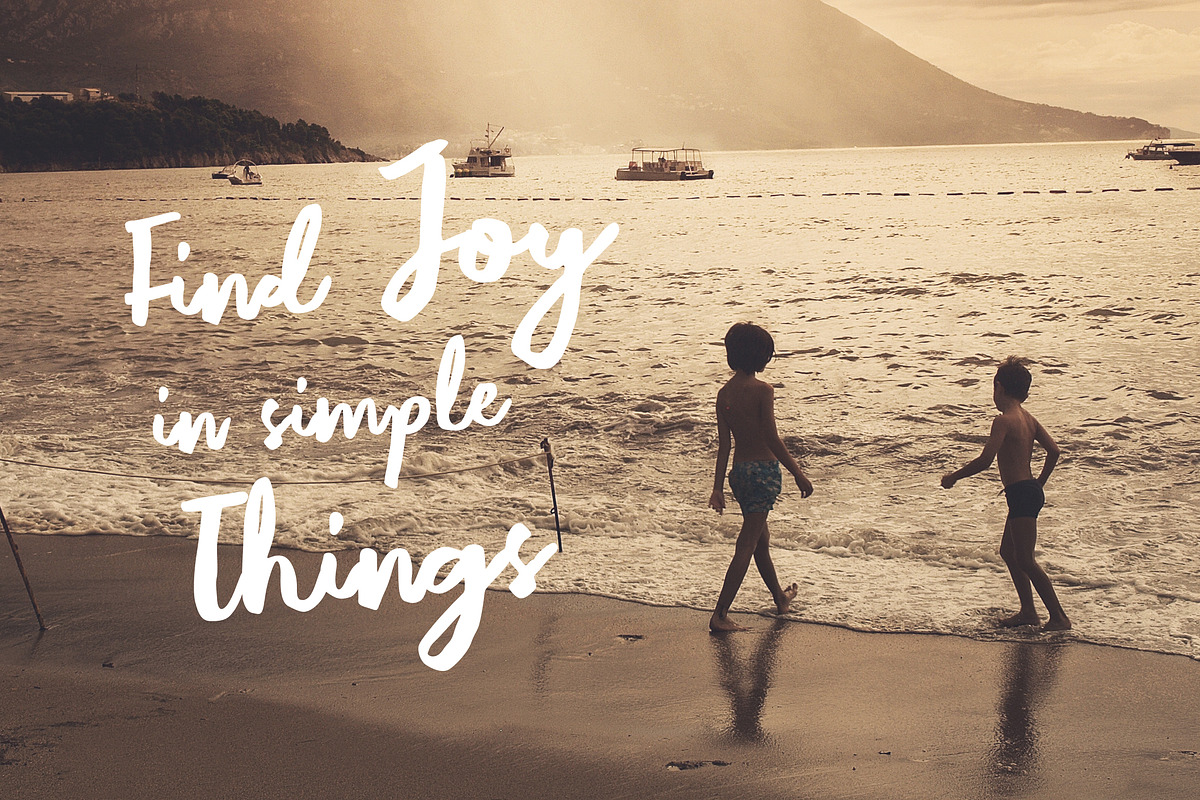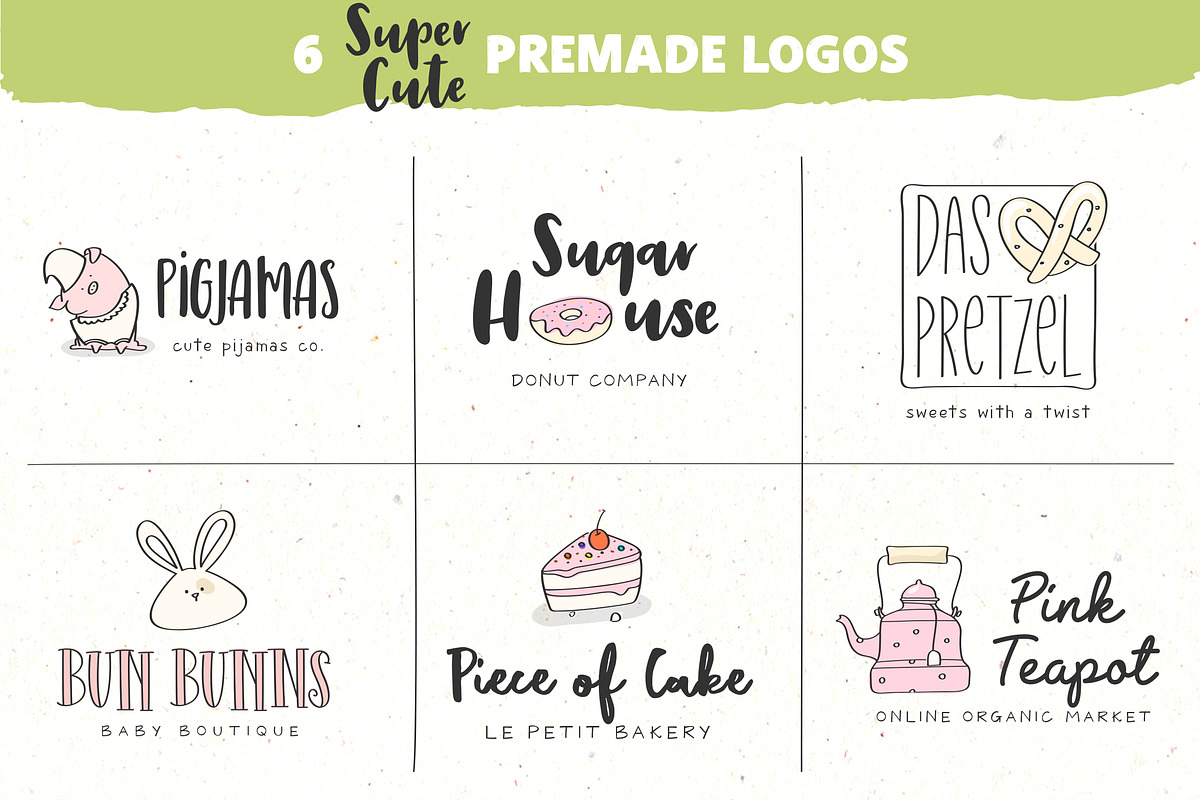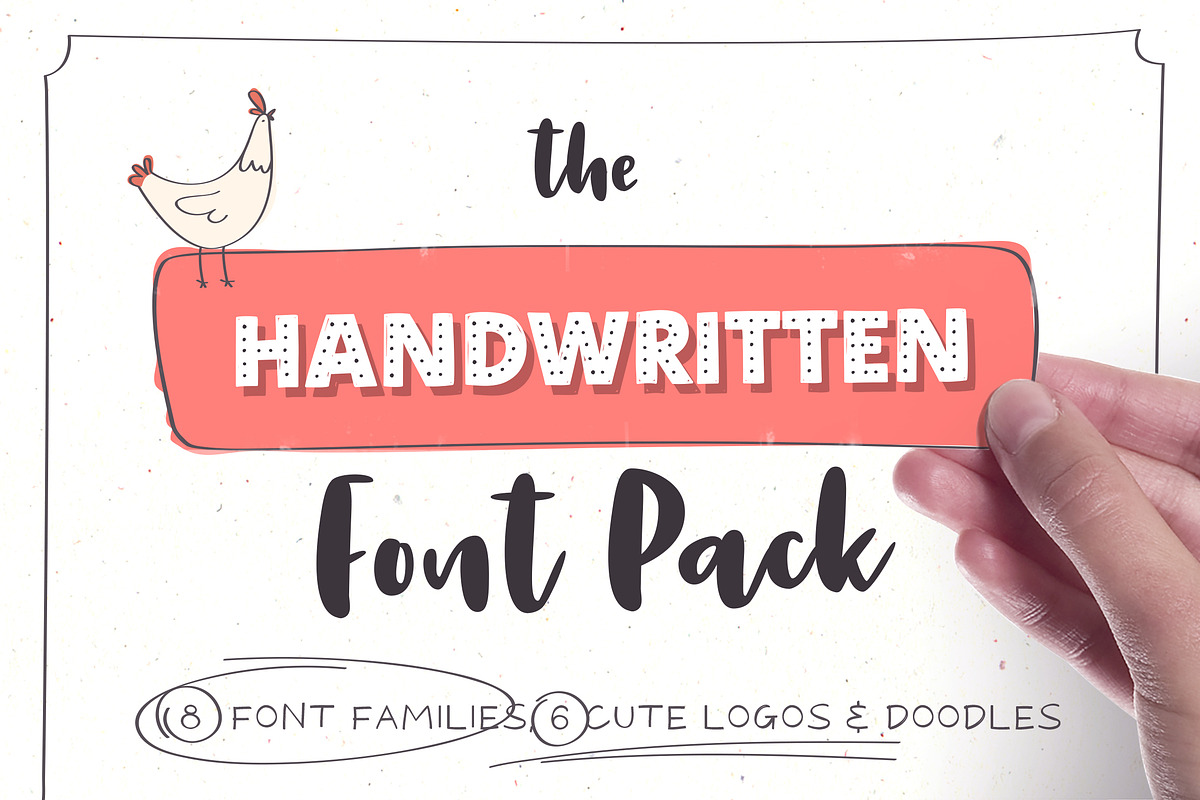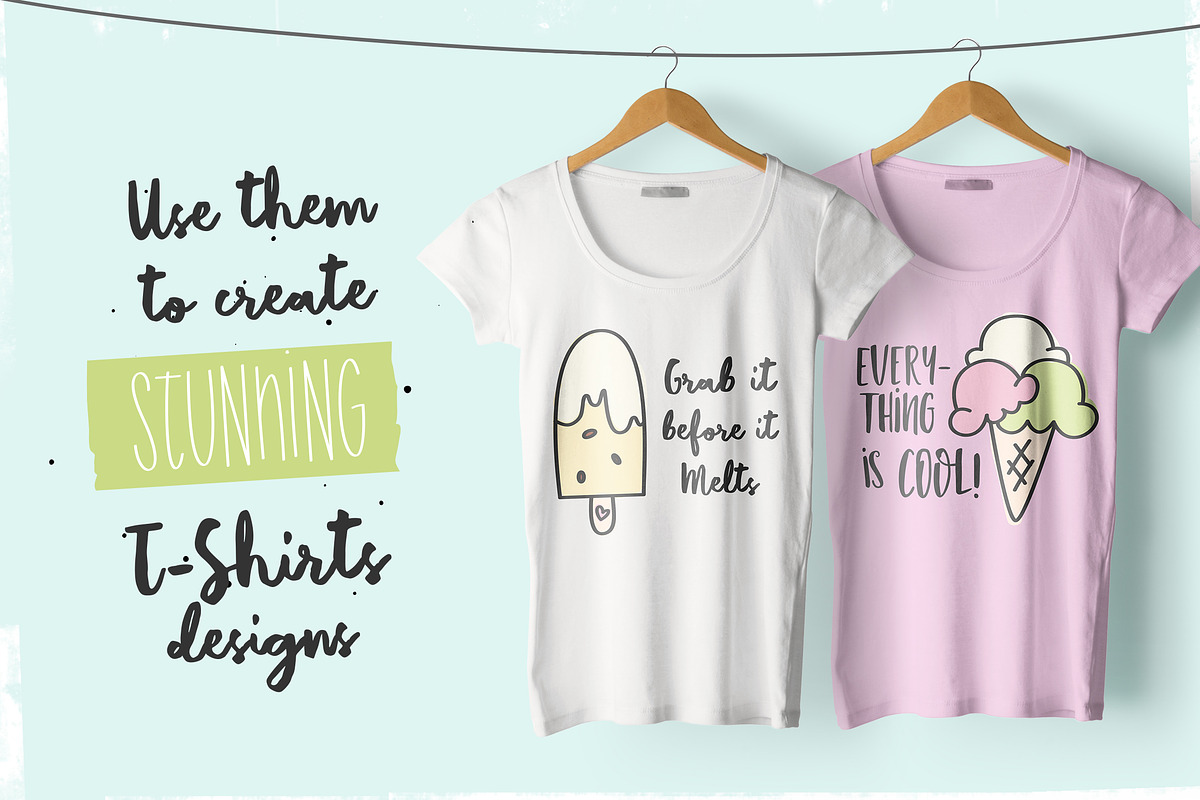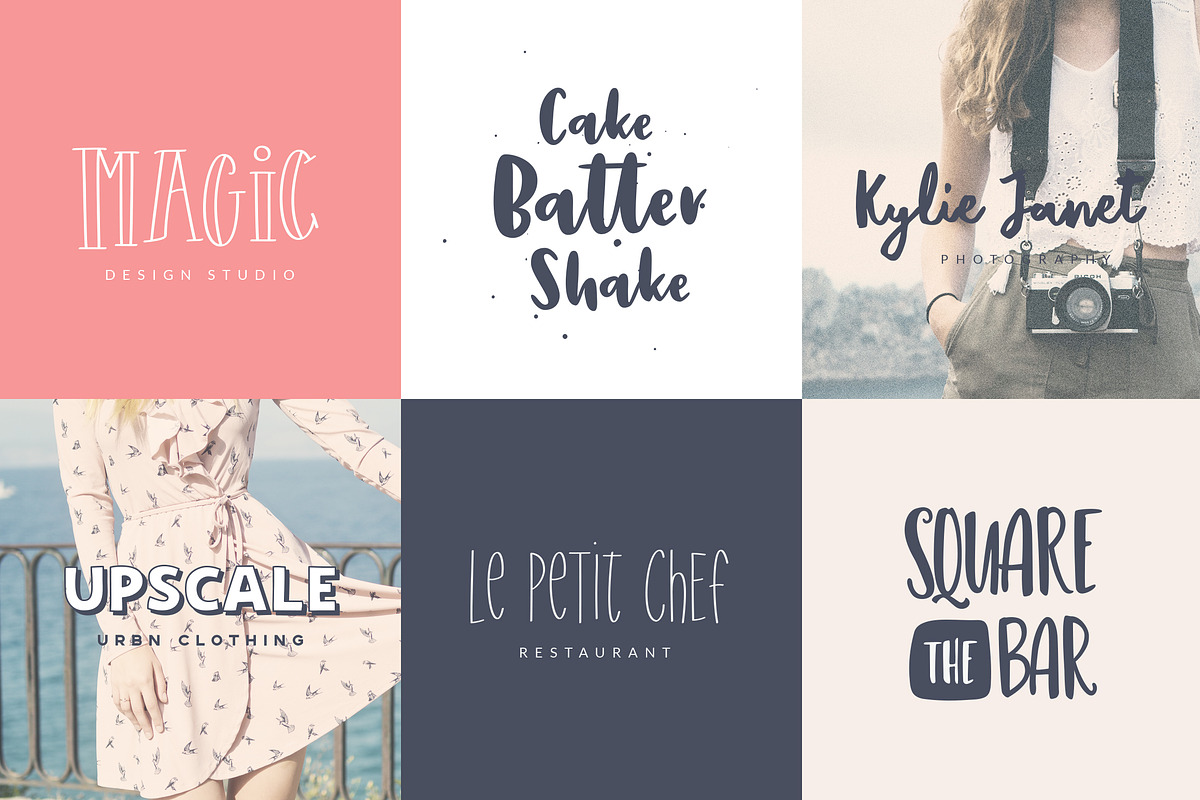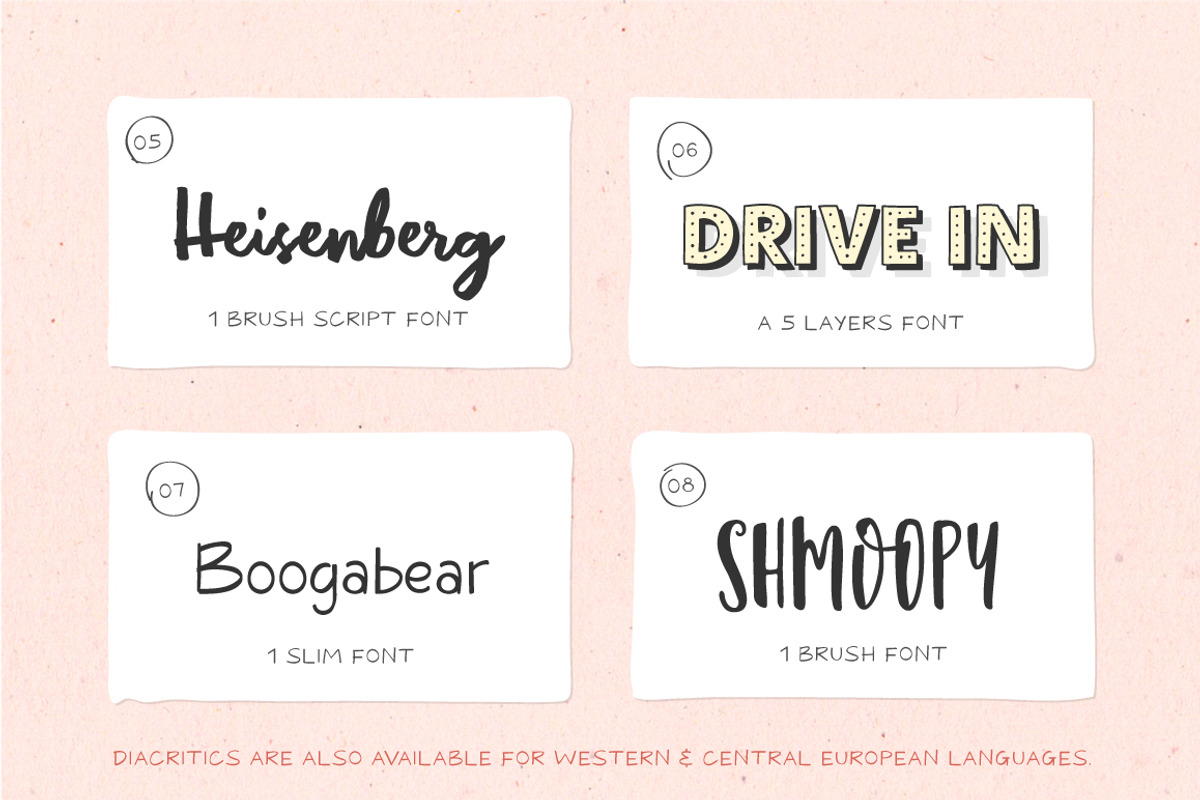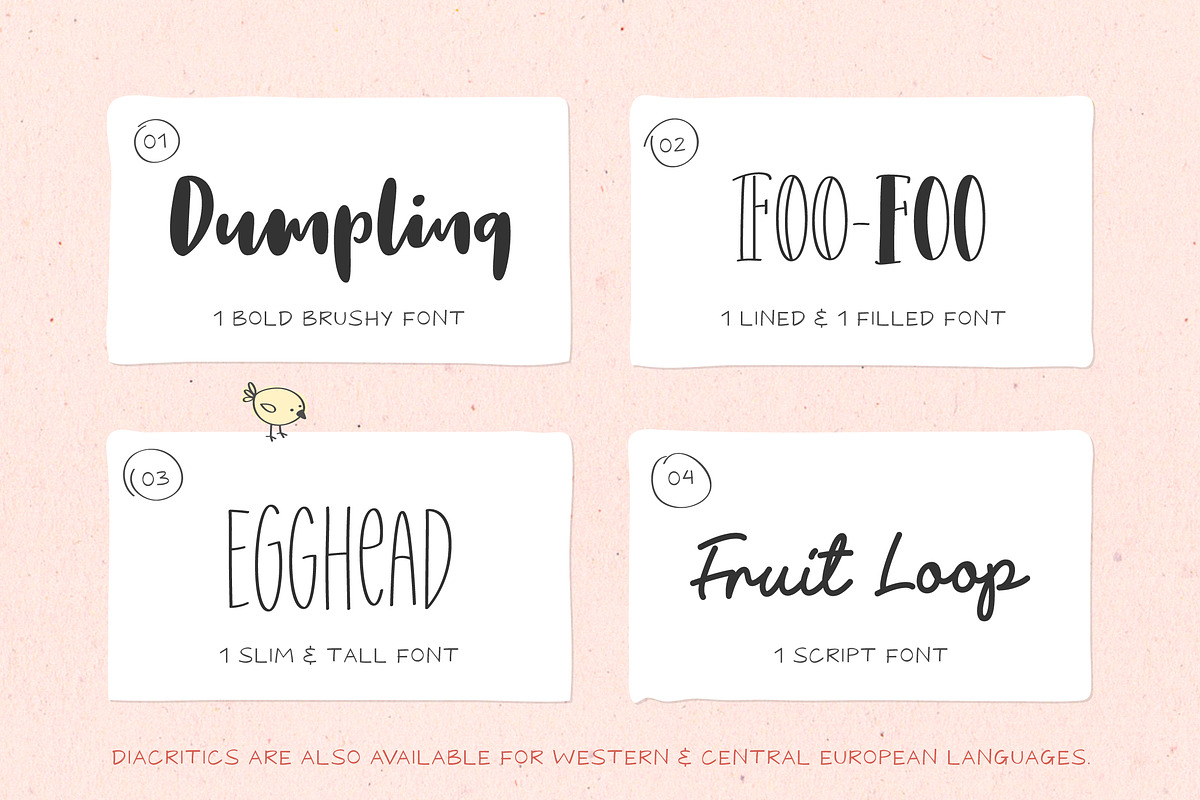
Handwritten Font Pack & Extras
Handwritten Font Pack & Extras is a unique pack that contains 13 Fonts grouped in 8 Font Families, 6 Super Cute Logos and a Big Pack of Doodles. All the fonts are coming in OTF, TTF and WOFF format, so you don’t have to worry for not having the right format for your next design project.Both the 6 Premade Logos (Fully Editable) and the Big Pack of Hand Drawn Doodles are in PSD and AI vector format (Stroke version included– for Doodles pack).
Dumpling - 1 Bold Brush Font
Foo-Foo - 1 Lined and 1 Filled Font
Egghead - 1 Slim and Tall Font
Fruit Loop - 1 Script Font
Heisenberg - 1 Brush Script Font
Drive In - A 5 Layers Font (Contour, Filled, Shadow, Dots, Line Inside)
Boogabear - 1 Slim Font
Shmoopy - 1 Brush Font
Handwritten Font Pack & Extras by VladCristea fits naturally into Branding, posters, packaging, typography.